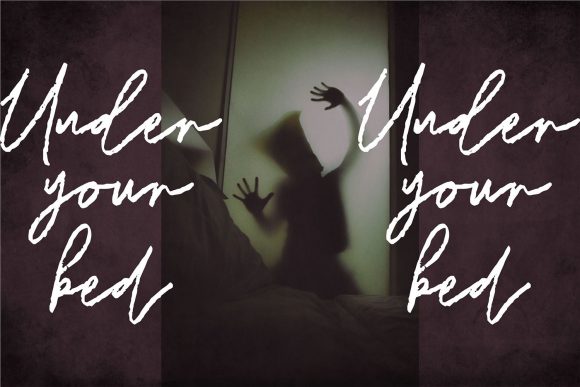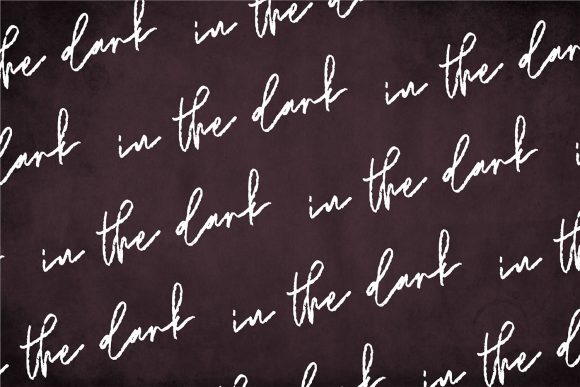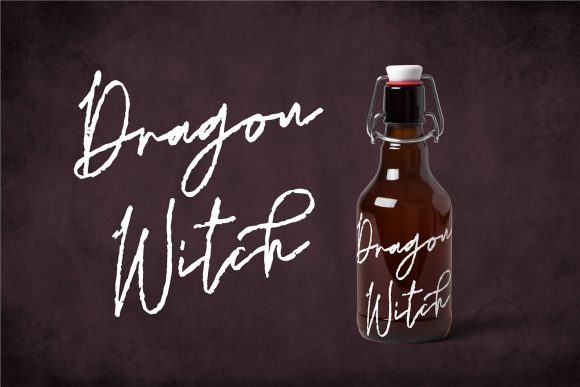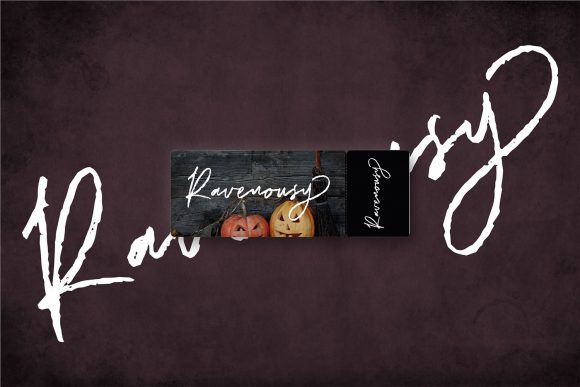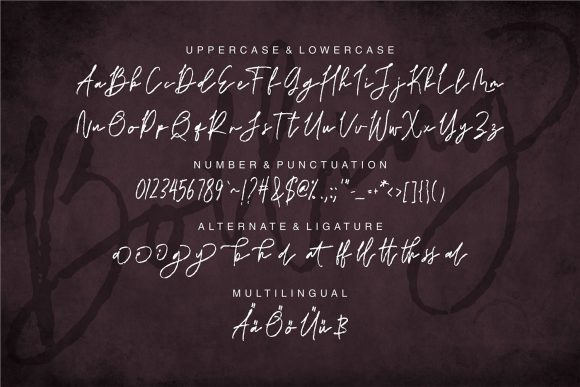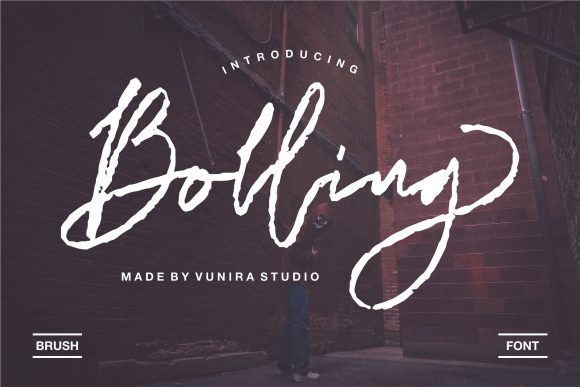
Bolling Font: Elevate Your Designs with Elegance and Sophistication
Are you on the hunt for a font that exudes elegance and sophistication? Look no further than the stunning Bolling Font! This beautiful, flowing handwritten font is sure to capture your heart with its incredibly distinct and timeless style. In this article, we’ll dive into the world of Bolling Font, exploring its features, benefits, and uses, as well as provide tips and inspiration for designers and crafters.
What is Bolling Font?
Bolling Font is a gorgeous, handwritten font that boasts an elegant touch, making it perfect for a wide range of projects. Its unique, flowing style is sure to add a touch of sophistication to any design, from wedding invitations and branding materials to digital products and craft projects. With its PUA (Private Use Area) encoding, Bolling Font offers effortless access to all glyphs and swashes, allowing you to unleash your creativity and produce truly spectacular designs.
Key Features of Bolling Font
- Elegant and Sophisticated Style: Bolling Font’s distinct, flowing script is sure to elevate your designs and add a touch of luxury.
- Timeless Appeal: Bolling Font’s classic style ensures that your designs will remain stylish and relevant for years to come.
- Versatile: Perfect for a wide range of projects, from digital products and branding materials to craft projects and wedding invitations.
Benefits of Using Bolling Font
So, why choose Bolling Font for your next project? Here are just a few benefits of using this stunning font:
- Stand Out from the Crowd: With Bolling Font, you can create unique and eye-catching designs that set you apart from the competition.
- Enhance Your Brand: Bolling Font’s elegant style is sure to elevate your brand and add a touch of sophistication to your marketing materials.
Using Bolling Font in Your Designs
So, how can you use Bolling Font in your designs? Here are a few ideas to get you started:
- Wedding Invitations and Stationery: Add a touch of elegance to your wedding invitations, save-the-dates, and stationery with Bolling Font.
- Branding and Packaging: Elevate your brand with Bolling Font’s sophisticated style, perfect for logos, business cards, and packaging.
- Digital Products: Use Bolling Font to add a touch of luxury to your digital products, such as e-books, courses, and software.
- Craft Projects: Bolling Font is perfect for craft projects, such as handmade cards, scrapbooking, and DIY tutorials.
Tips and Tricks for Working with Bolling Font
Here are a few tips and tricks to help you get the most out of Bolling Font:
- Experiment with Different Sizes and Colors: Play around with different sizes and colors to find the perfect combination for your design.
- Mix and Match with Other Fonts: Combine Bolling Font with other fonts to create a unique and eye-catching design.
- Use Swashes and Glyphs: Take advantage of Bolling Font’s extensive character set to add a touch of elegance and sophistication to your design.
In conclusion, Bolling Font is a stunning, elegant font that’s perfect for designers and crafters looking to add a touch of sophistication to their projects. With its PUA encoding, extensive character set, and timeless style, Bolling Font is sure to become a favorite in your font collection. So why wait? Fall in love with Bolling Font and start creating spectacular designs today!